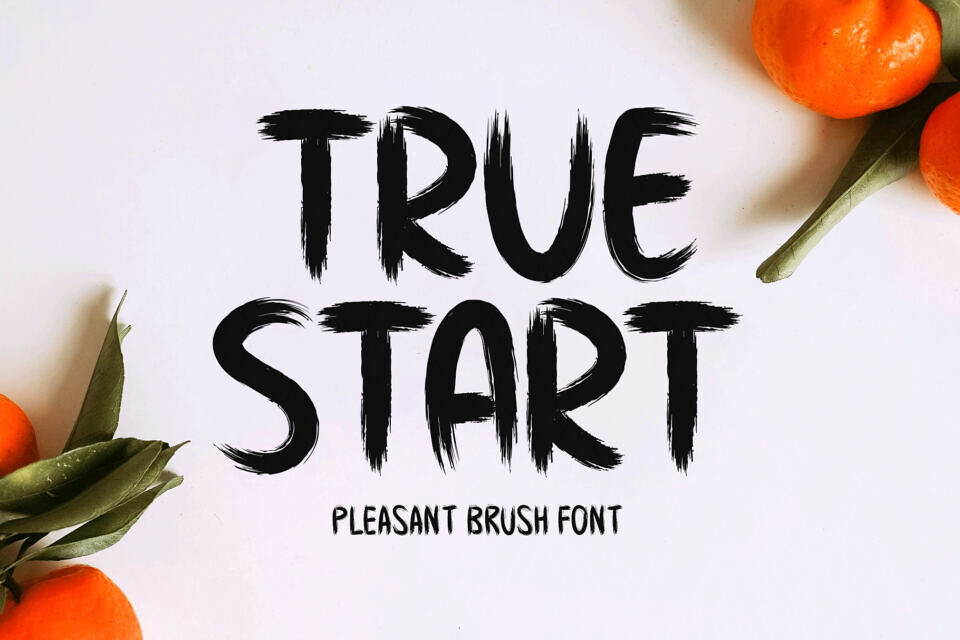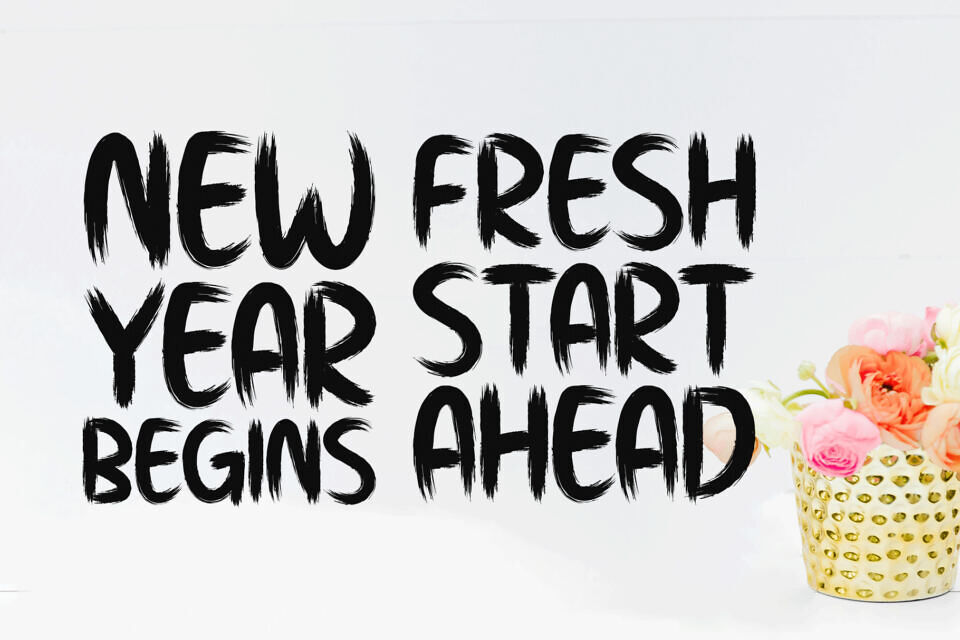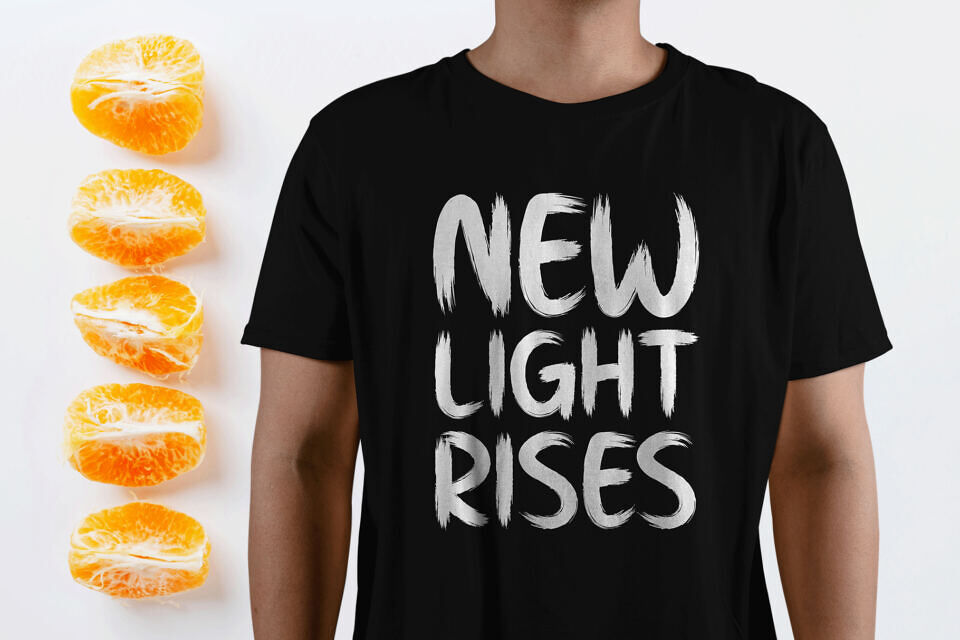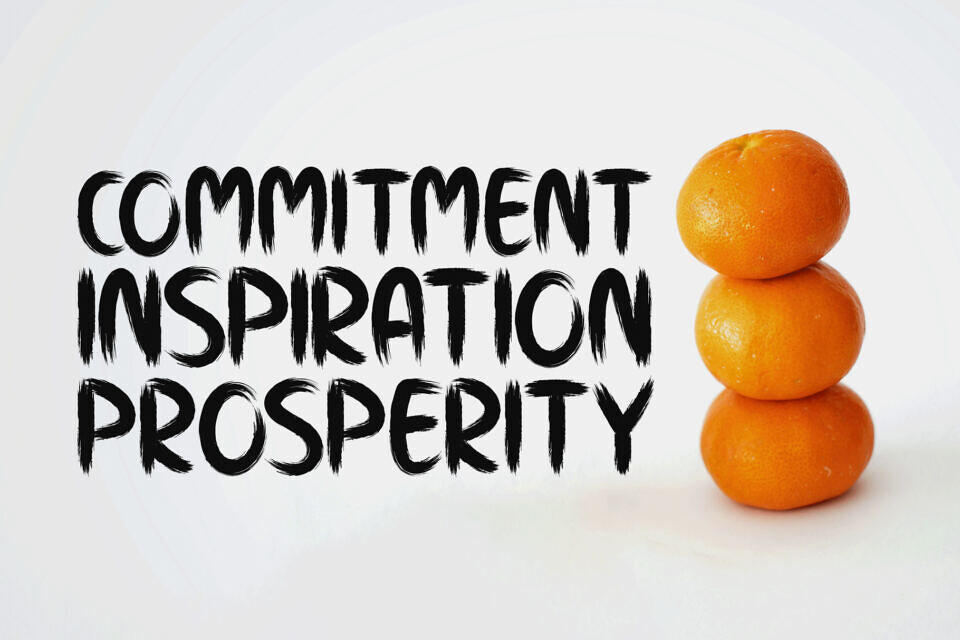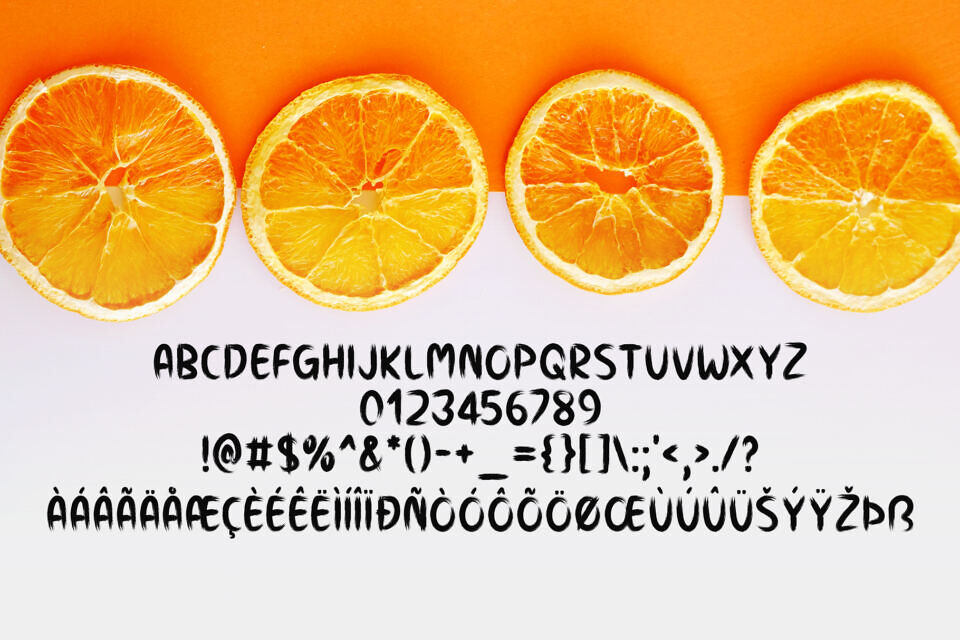
True Start is a charming brush font designed to deliver a clean yet artistic look. The hand-drawn strokes create a sense of movement and positivity, making it perfect for branding, apparel, flyers, social media graphics, and various print designs. Whether used for personal or professional projects, True Start adds a bright and inviting personality.